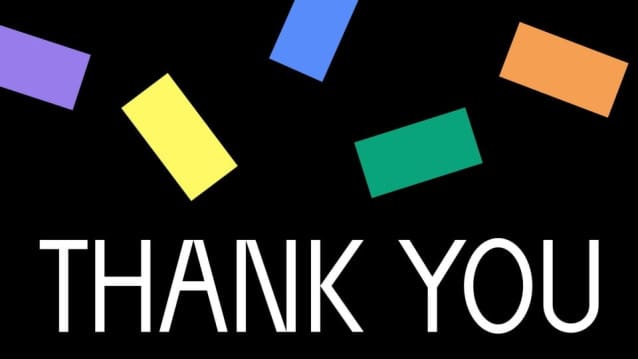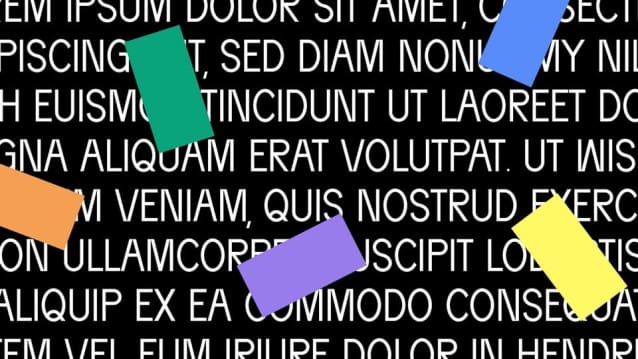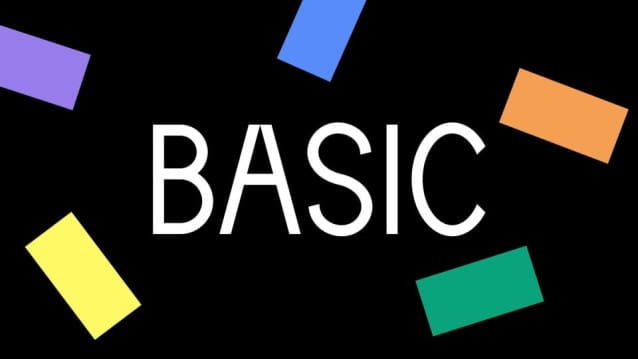
Basic V1 Font
Basic V1 Font is a modern and minimalistic sans-serif typeface designed for clean, contemporary aesthetics. With its crisp lines, balanced proportions, and uncluttered forms, it embodies simplicity and sophistication. The neutral yet confident letterforms ensure excellent legibility across digital and print media, making it a versatile choice for a wide range of projects.
Perfect for branding, editorial layouts, user interfaces, and minimalist designs, Basic font adds a touch of modern elegance without overpowering the content. Its subtle geometric construction paired with humanist touches creates a harmonious, timeless appeal.
Elevate your designs with Basic font—a typeface that speaks clarity, precision, and style.